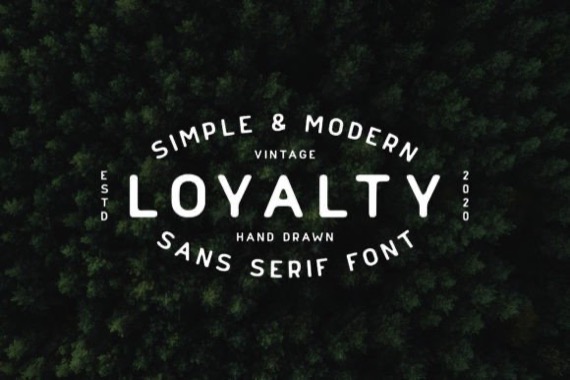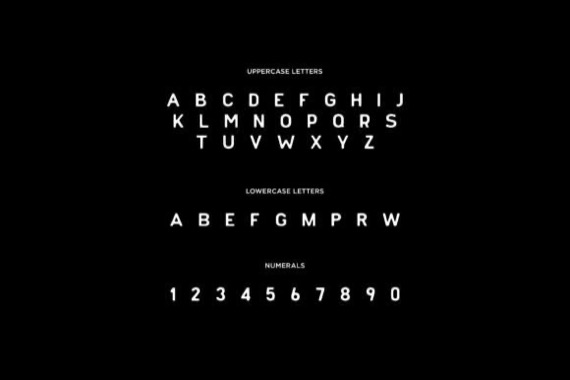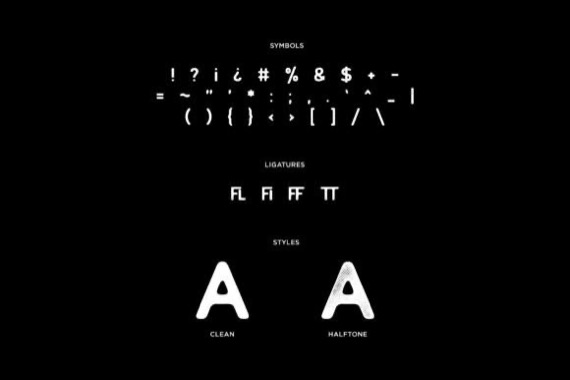
Loyalty is a spectacular display sans serif font that was created and published by Mikhail Kitsune with a fatty & playful style. The font has a vintage style that can be used for prints on t-shirts, hoodies, cups, shirts, stickers etc. This font includes letters, numbers, symbols & punctuation, foreign language accents. Loyalty includes: 2 Versions: Regular & Halftone, Letters, Numbers, Symbols & Punctuation, Multilingual Support.
Loyalty Vintage Sans Serif Font